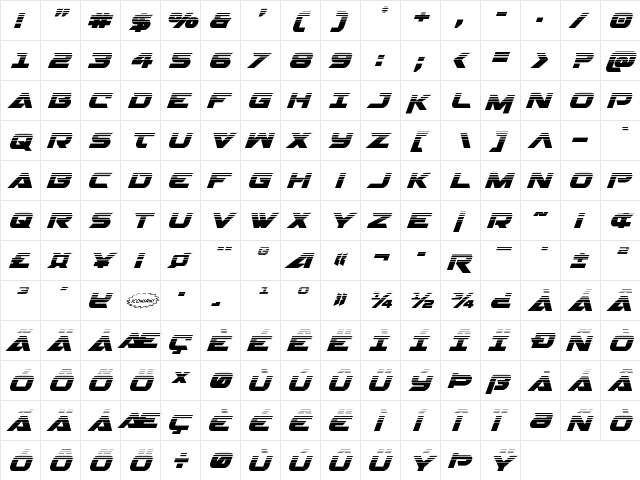
Gemina 2 Halftone Italic Italic
Design Context for Gemina 2 Halftone Italic Typeface
Gemina 2 Halftone Italic is a composed and adaptable typeface that performs quietly and consistently across a wide range of design contexts. The dynamic lean of this cut emphasises speed and emphasis in any layout.
Pro Tip: Use Gemina 2 Halftone Italic for emphasis, pull quotes, and subheadings where its slanted energy can add rhythm to the layout.